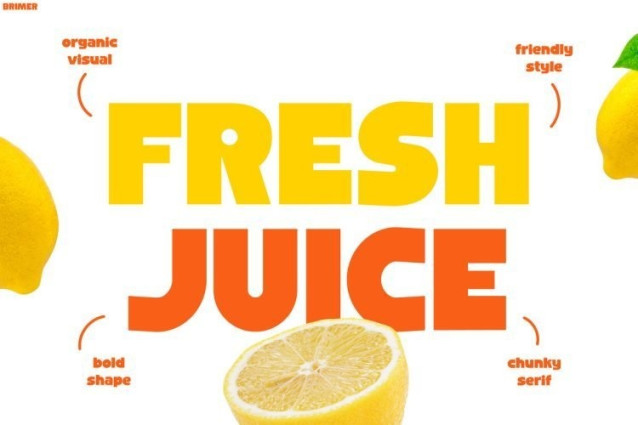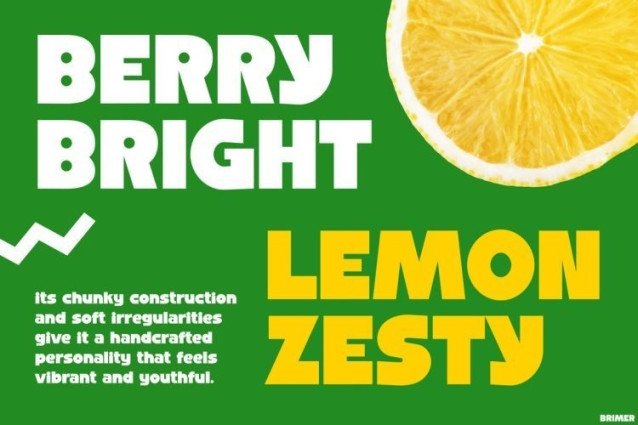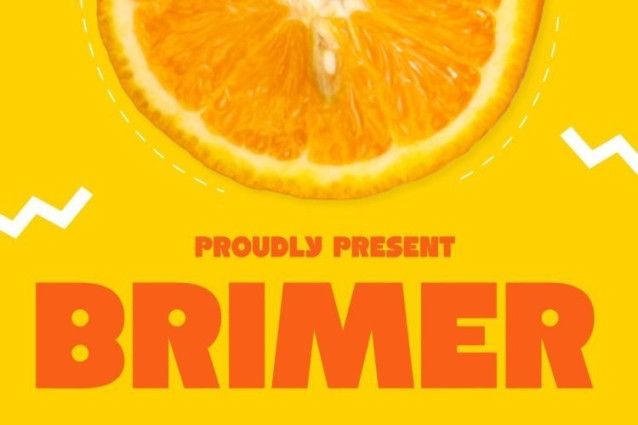
Brimer Font
Brimer Font is a vibrant and energetic display font designed to make brands look fresh, modern, and impossible to ignore. Featuring thick letterforms, smooth rounded edges, and a bold geometric structure, this font instantly creates a strong visual impact. Moreover, its playful yet clean appearance helps designs feel approachable and professional at the same time. As a result, every headline becomes more eye-catching and memorable. Furthermore, the balanced proportions and chunky style ensure excellent readability across social media, packaging, and promotional materials. Whether you’re building a beverage brand, launching a product campaign, or creating engaging Instagram content, Instagram Font BRIMER delivers a bright and refreshing personality that grabs attention fast.
Instagram Font BRIMER Designed for Modern Branding
BRIMER combines bold aesthetics with everyday versatility. Not only does it create powerful visual hierarchy, but it also adds energy and excitement to every design. In addition, its contemporary style works beautifully across both digital and print platforms. Consequently, brands can maintain a consistent and professional appearance while still feeling fun and approachable. Meanwhile, its fresh and colorful character makes it ideal for products targeting younger and trend-conscious audiences. Therefore, it is a perfect choice for impactful branding projects.